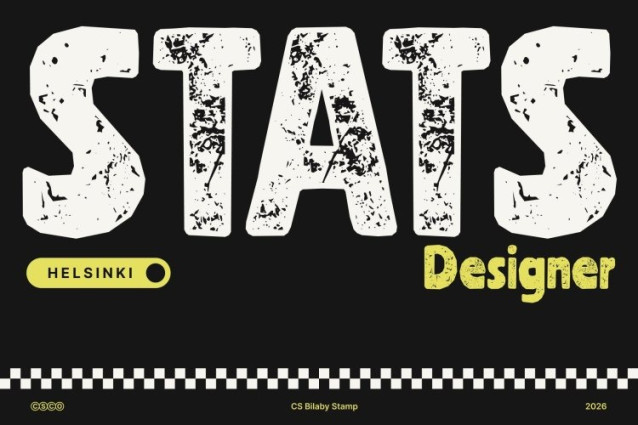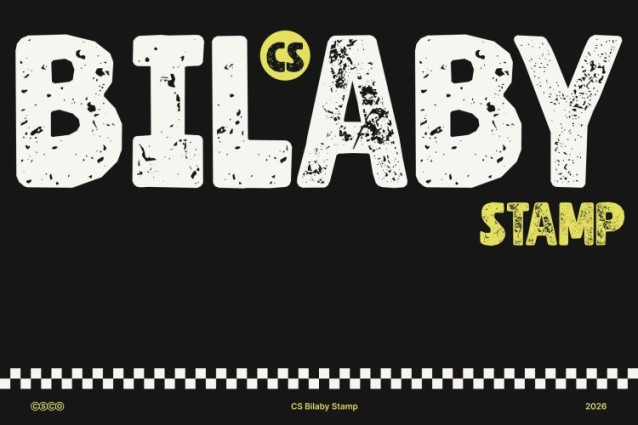
CS Bilaby Stamp Font
CS Bilaby Stamp Font This is a modern display font that captures the warmth of handwritten lettering with a clean, contemporary structure. Its neat letterforms and organic flow feel friendly and expressive. Enhanced with a stamp effect, the font gains subtle texture and gentle imperfections, creating a vintage, hand-pressed look that adds authenticity and visual interest.
Expressive and Cheerful Design with Artistic Texture
Blending modern precision with playful energy, this font radiates friendliness and joy. The quirky shapes and smooth curves are enriched by the stamped texture, giving each character an artistic, slightly worn finish that makes designs feel lively and handcrafted.
Balanced Between Fun, Vintage, and Professional
While its handwritten style introduces spontaneity and charm, maintains clear structure and excellent readability. The combination of modern form and textured stamp detail strikes a perfect balance between casual creativity and professional polish making it suitable for both personal and commercial projects.
Perfect for Fresh, Characterful, and Creative Projects
Ideal for titles, posters, branding, packaging, and other creative applications, this font delivers a fresh look filled with personality. Its playful handwritten nature paired with a vintage stamped finish makes an inviting choice for youthful brands, modern visuals, and expressive design concepts.